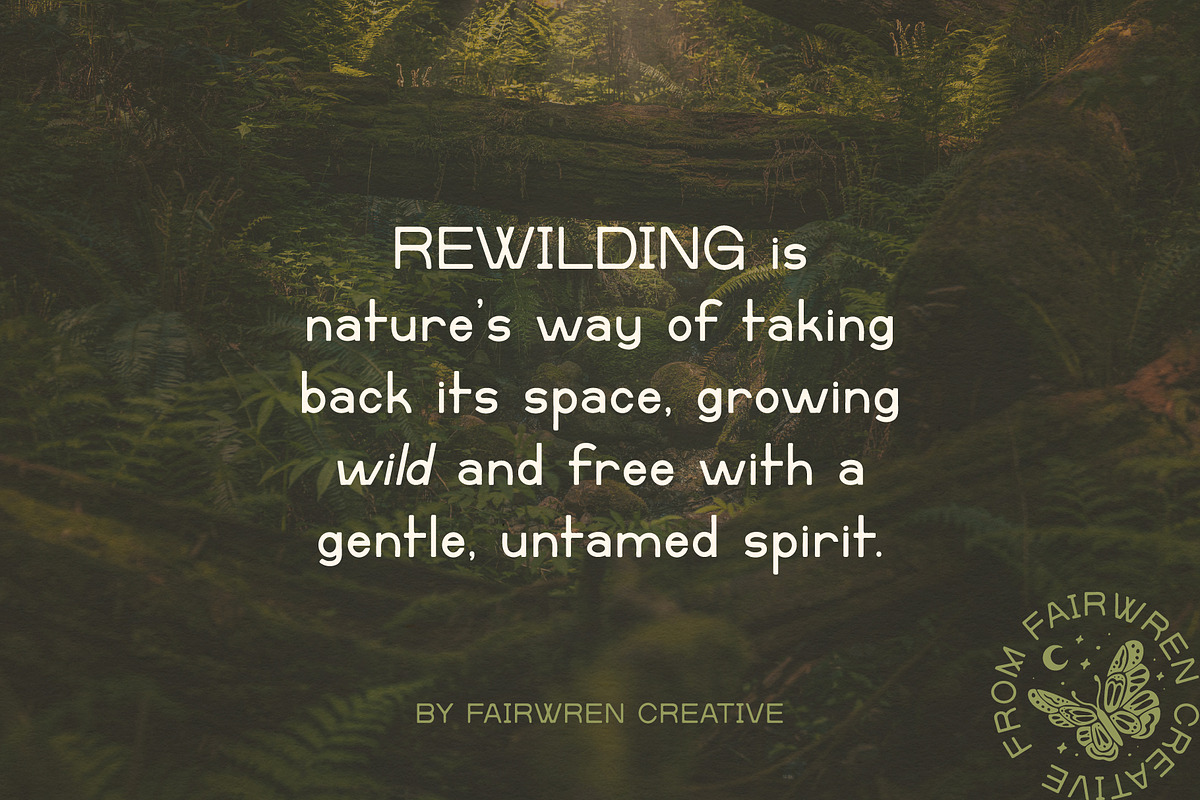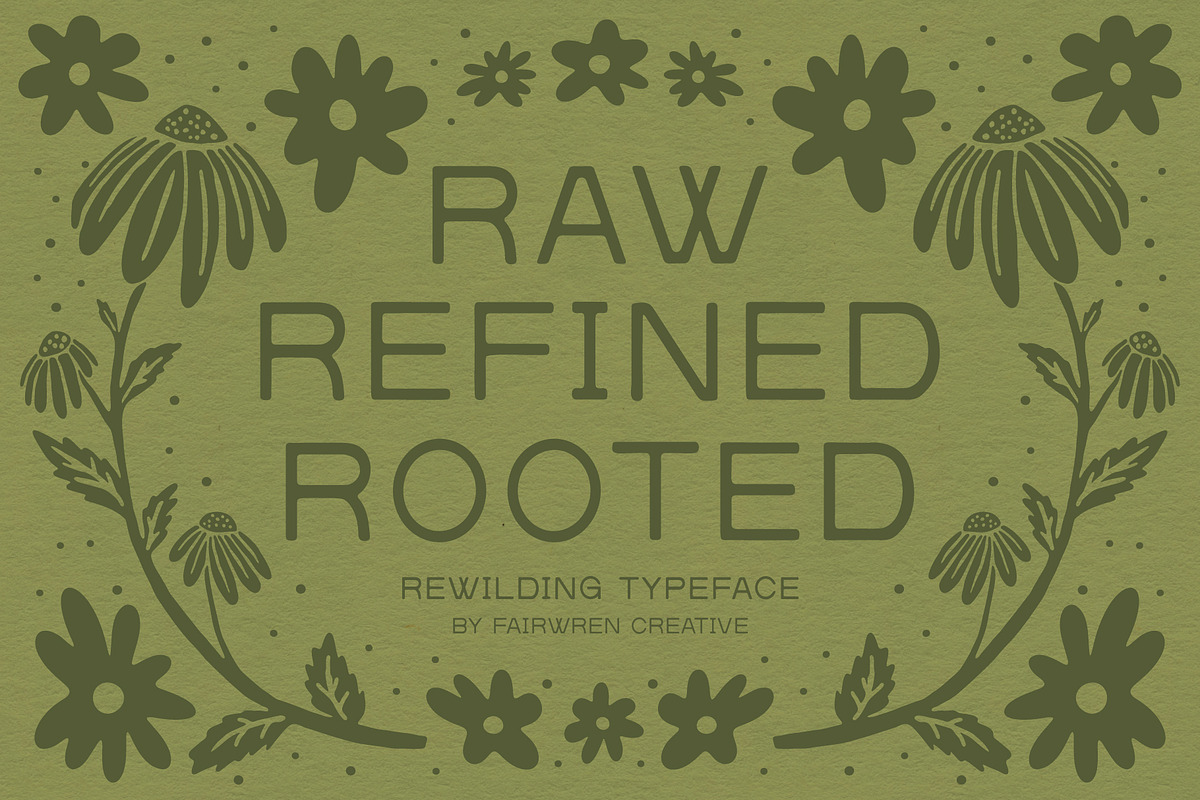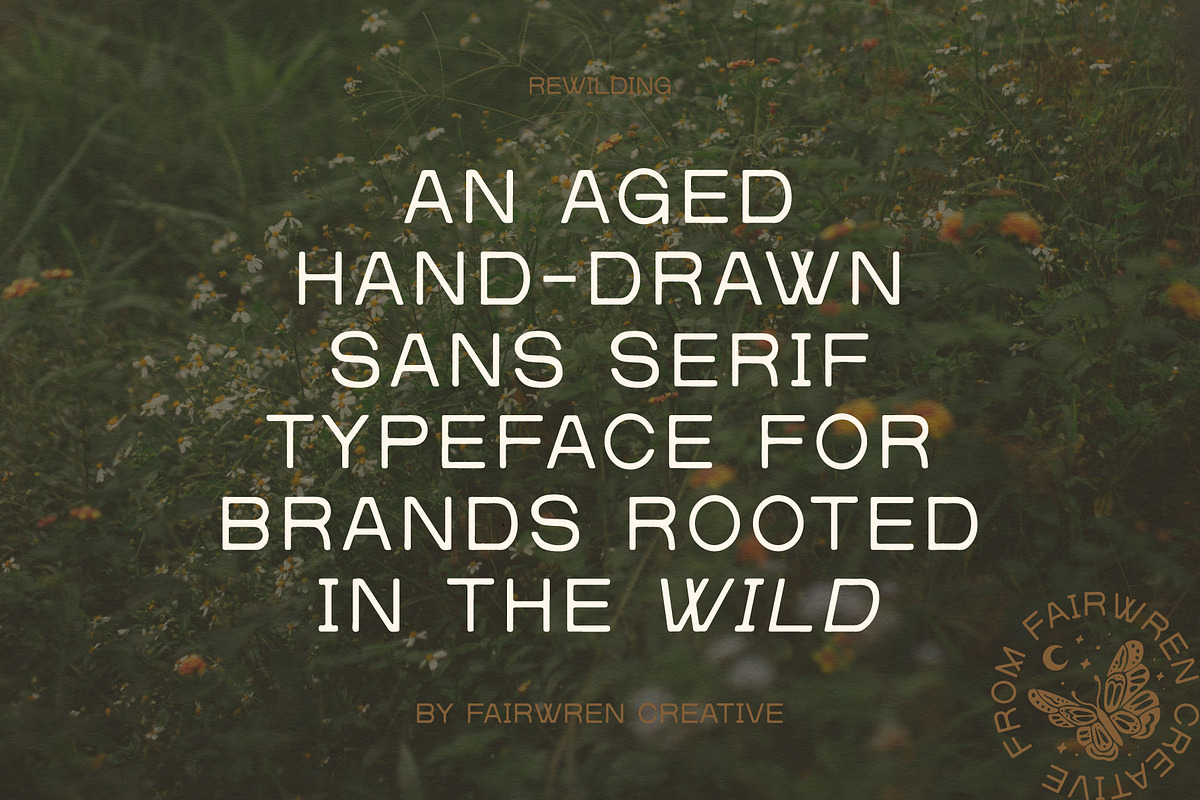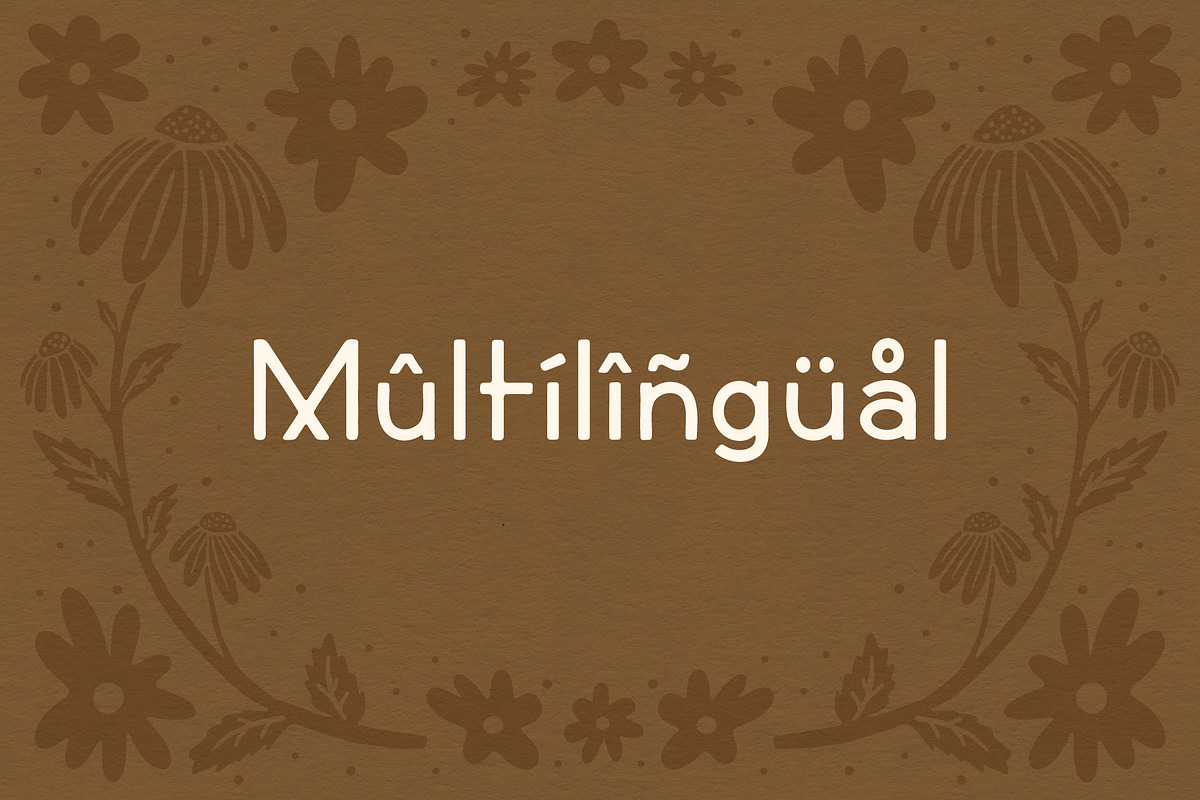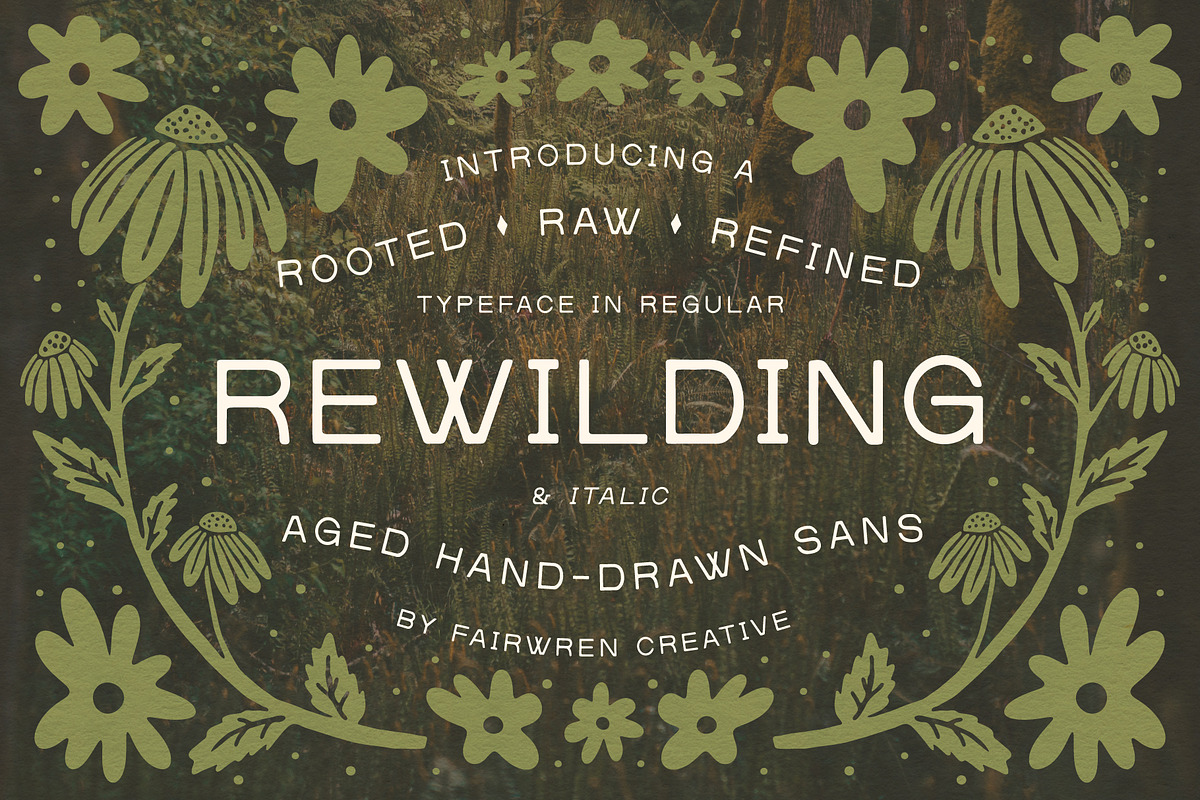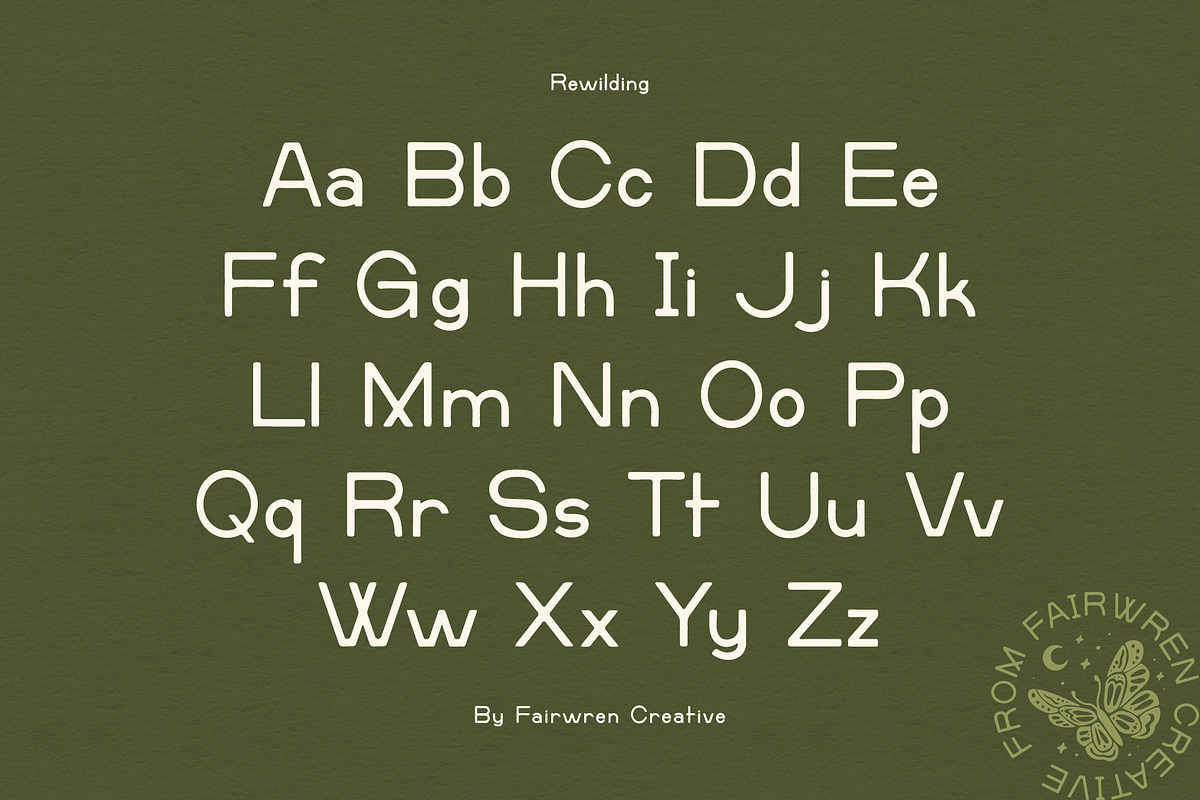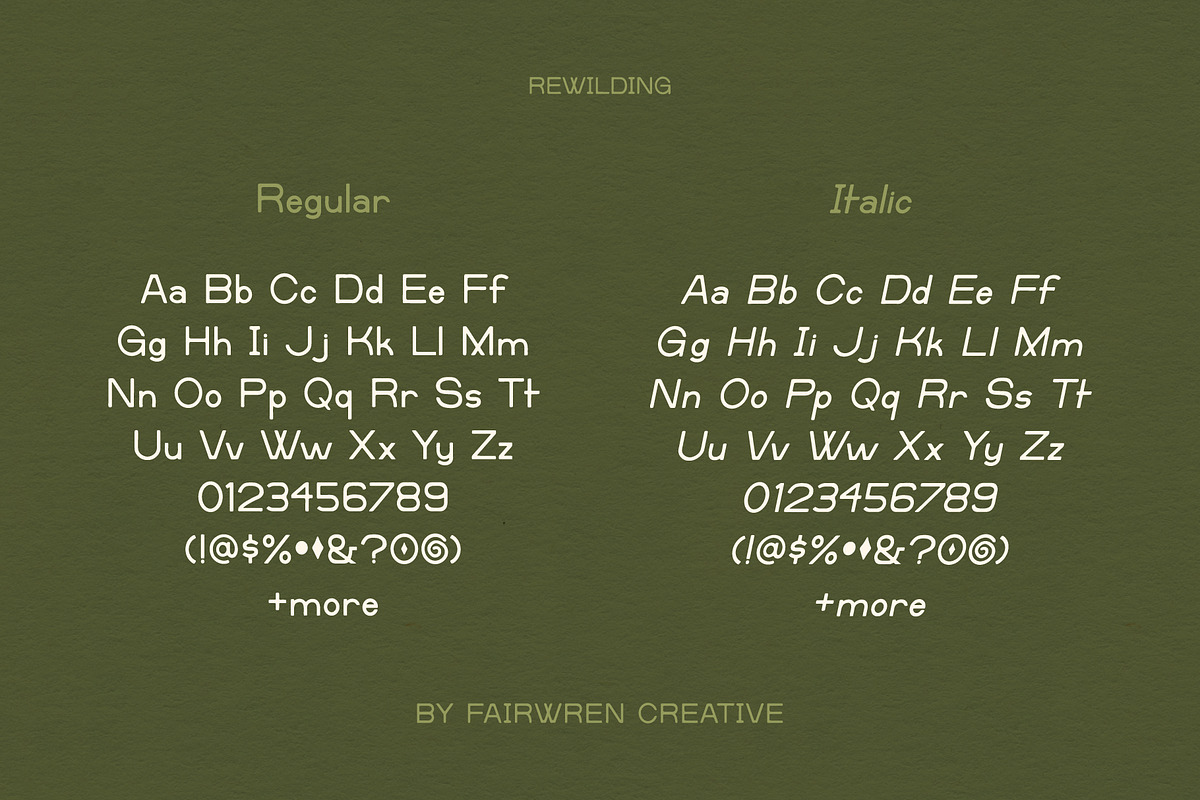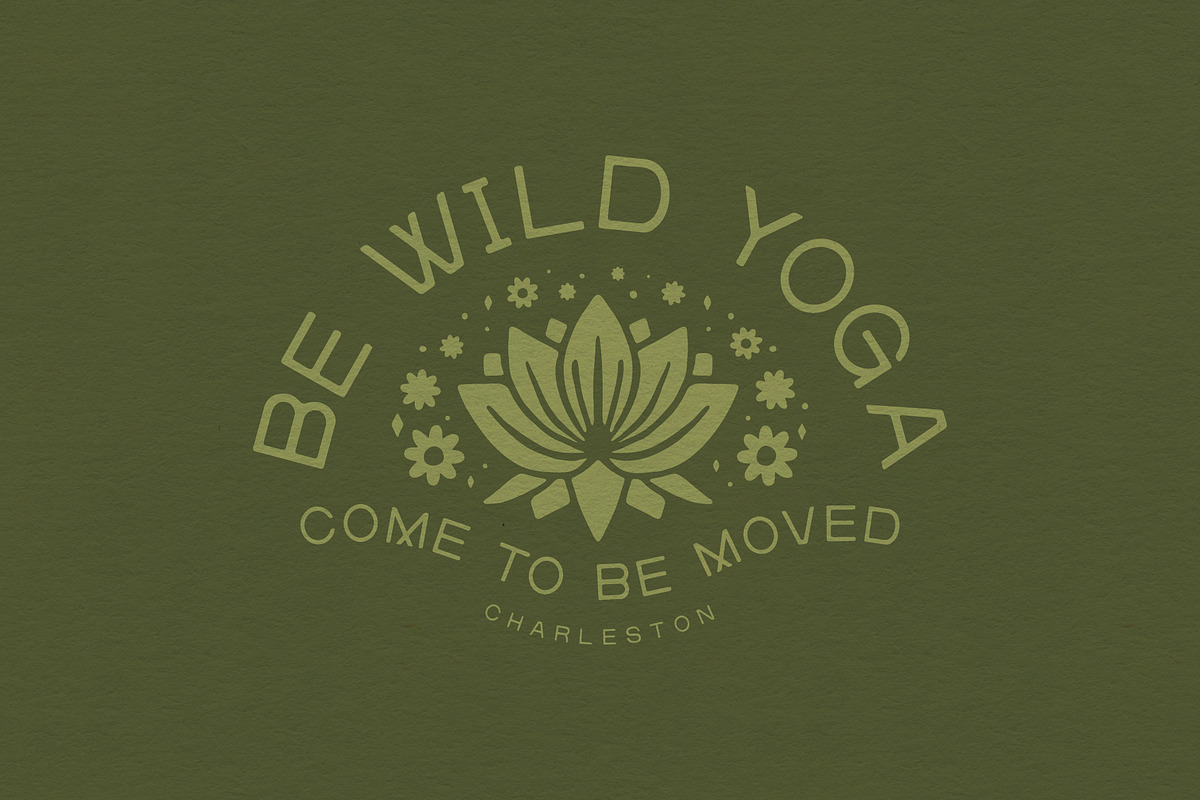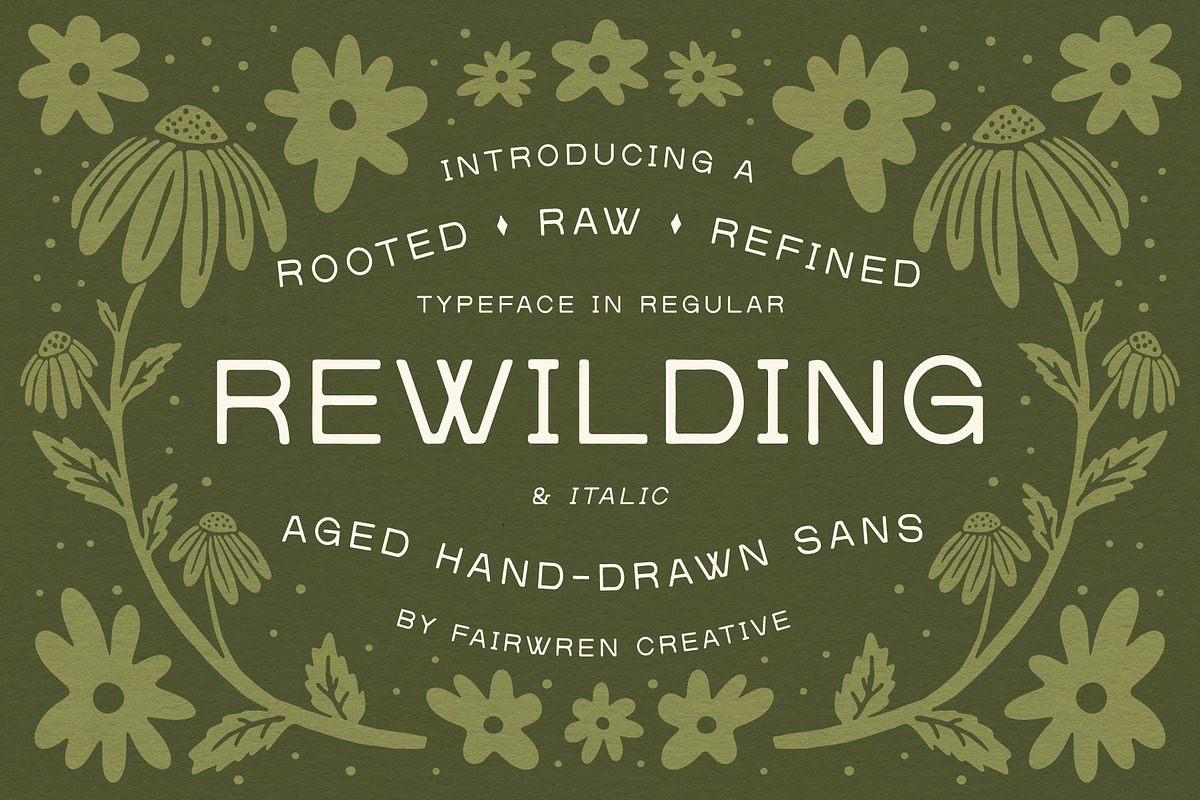
Rewilding
Rewilding is a grounded typeface that blends clean structure with an aged, hand-drawn texture.
With both Regular and Italic styles, Rewilding offers crisp, intentional letterforms softened by subtle imperfections. Like weathered stone or reclaimed landscapes, it feels shaped by time and touch. This balance of clarity and texture makes it ideal for branding, websites, socials, and any project that seeks to feel untamed yet defined.
Includes: ✔️ Uppercase and lowercase letterforms ✔️ Numbers, Symbols, and Punctuation ✔️ Alternate characters for variety ✔️ Multilingual support